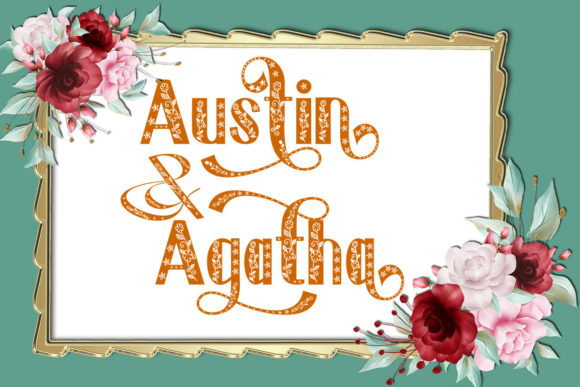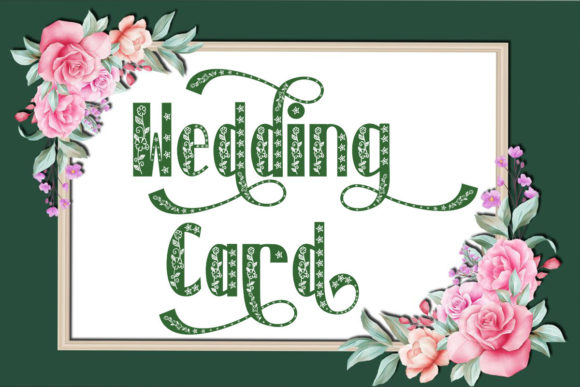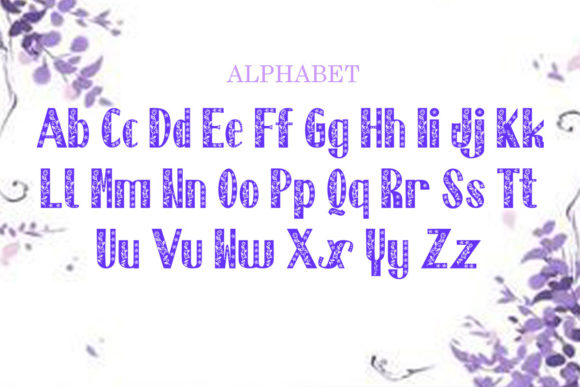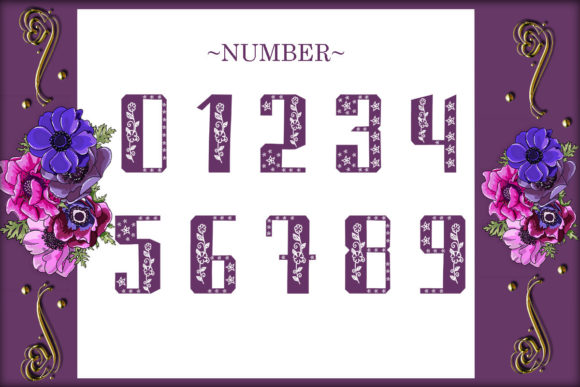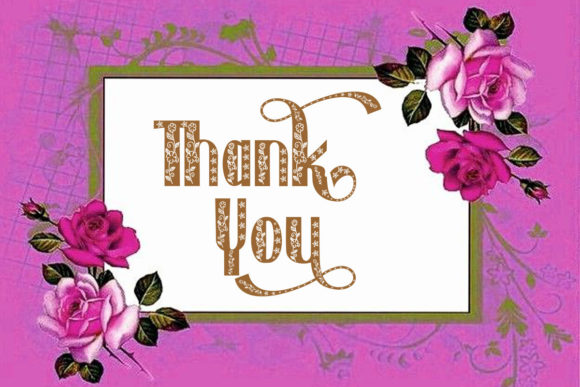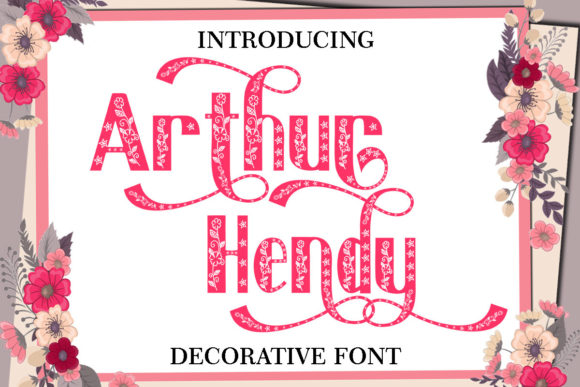
Introducing the Arthur Hendy Font: A Cool and Versatile Decorative Font
Are you a designer or crafter looking for a unique and eye-catching font to elevate your creative projects? Look no further than the Arthur Hendy Font, a cool and thick-lettered decorative font that’s sure to become a valuable addition to your font library.
What Makes Arthur Hendy Font So Special?
The Arthur Hendy Font is a beautifully crafted font that’s been designed with attention to detail and a focus on versatility. Its thick, bold letters make it perfect for creating eye-catching headings, titles, and signage, while its neat and tidy design ensures that it remains legible even at larger sizes.
One of the standout features of the Arthur Hendy Font is its high level of detail. The font has been carefully crafted to ensure that every letter, from the elegant swashes to the intricate glyphs, is meticulously designed to perfection. This attention to detail makes it an excellent choice for designers and crafters who want to add a touch of sophistication and elegance to their work.
The Benefits of Using Arthur Hendy Font
So why should you choose the Arthur Hendy Font for your next project? Here are just a few benefits of using this amazing font:
- Enhance Your Creations: With its bold, eye-catching design, the Arthur Hendy Font is sure to enhance any creation, from posters and flyers to logos and branding materials.
- Versatile: Whether you’re working on a formal or informal project, the Arthur Hendy Font is versatile enough to adapt to any topic or theme.
- Highly Legible: Despite its bold design, the Arthur Hendy Font remains highly legible, even at larger sizes, making it perfect for use in headings, titles, and signage.
How to Use Arthur Hendy Font in Your Designs
Using the Arthur Hendy Font in your designs is easy. Here are a few tips to get you started:
- Pair it with Other Fonts: The Arthur Hendy Font pairs well with a range of other fonts, from elegant scripts to bold sans serifs. Experiment with different combinations to find the perfect look for your project.
- Use it for Headings and Titles: The Arthur Hendy Font is perfect for use in headings and titles, where its bold design can really make an impact.
- Experiment with Swashes and Glyphs: With its PUA encoding, the Arthur Hendy Font comes with a range of swashes and glyphs that you can use to add extra flair to your designs.
Who is Arthur Hendy Font Suitable For?
The Arthur Hendy Font is suitable for a wide range of designers and crafters, including:
- Graphic Designers: Whether you’re working on a logo, branding materials, or advertising, the Arthur Hendy Font is a great choice for adding a touch of elegance and sophistication to your designs.
- Crafters: If you’re a crafter looking for a unique and eye-catching font to use in your projects, the Arthur Hendy Font is a great choice.
- Signmakers: The Arthur Hendy Font is perfect for use in signage, where its bold design can really make an impact.
In conclusion, the Arthur Hendy Font is a cool and versatile decorative font that’s sure to become a valuable addition to any designer’s or crafter’s font library. With its bold, eye-catching design, high level of detail, and ease of use, it’s the perfect choice for a wide range of creative projects. So why not give it a try and see the difference it can make in your designs?